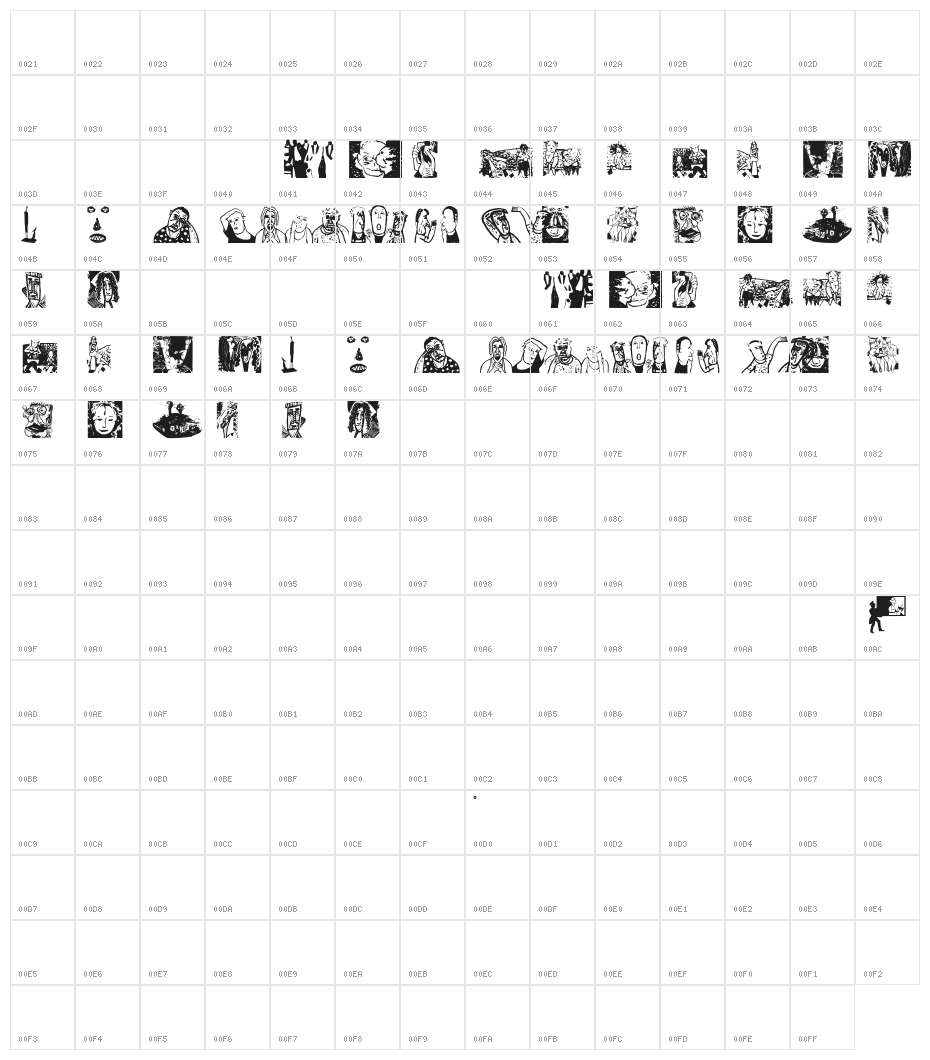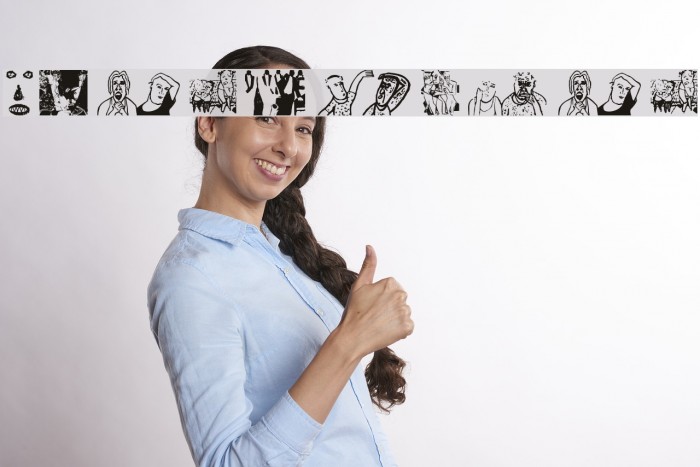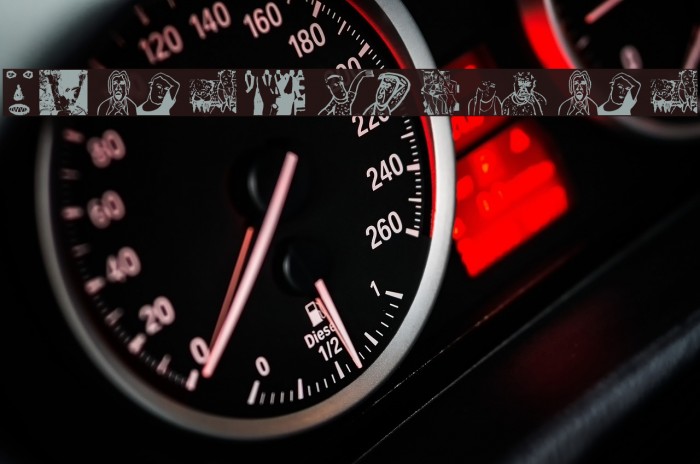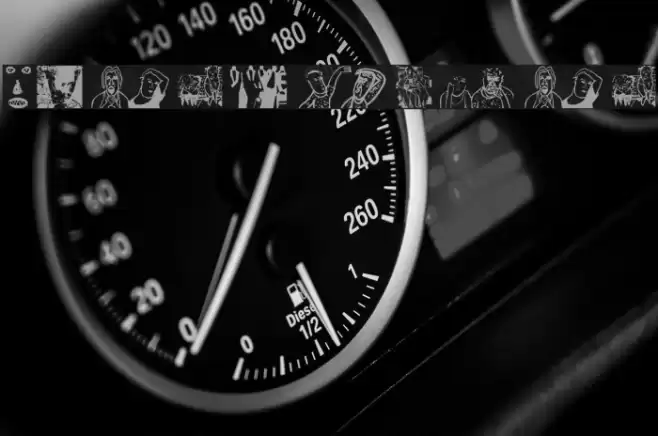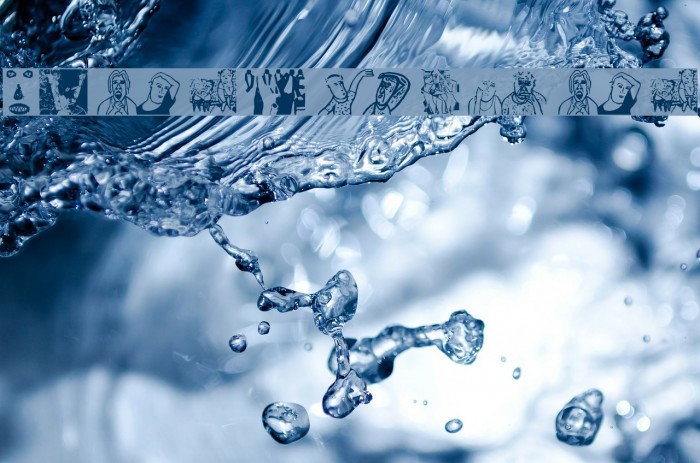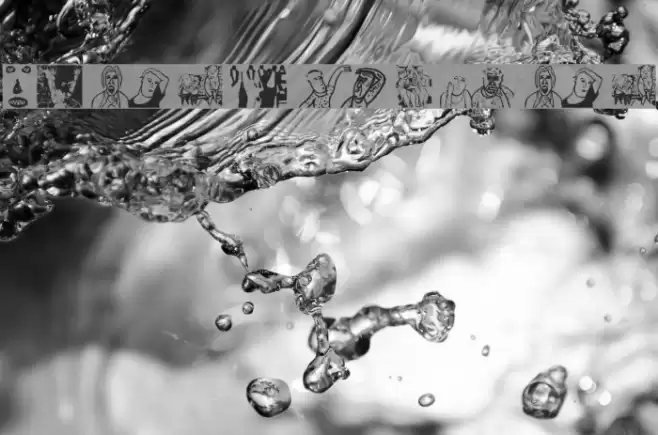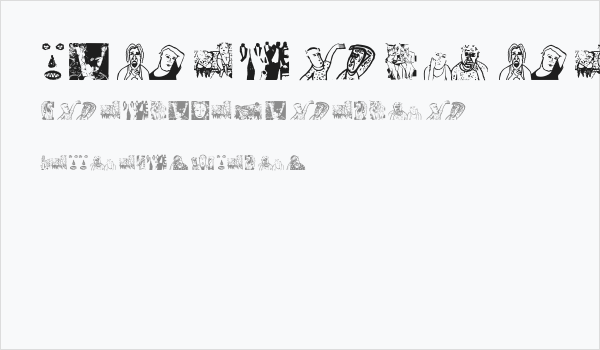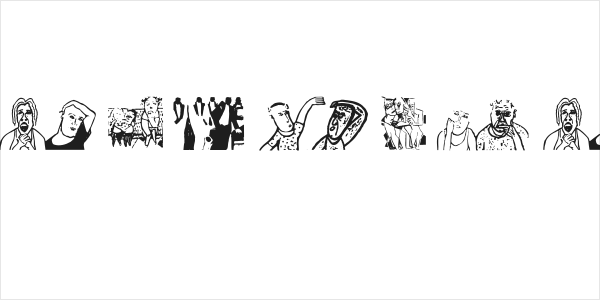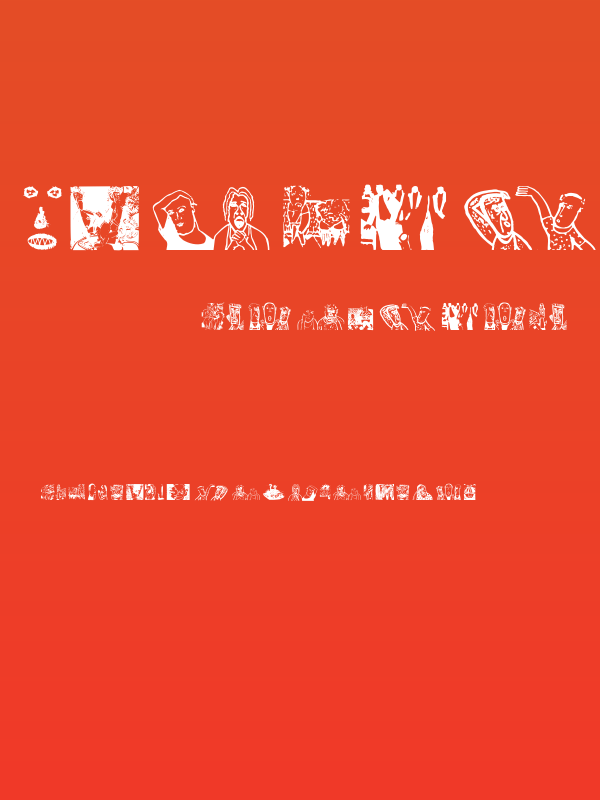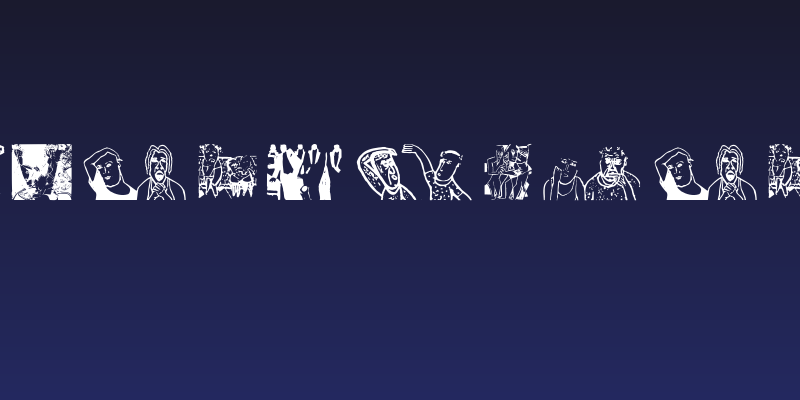
LineartOne Font
LineartOne Description
This is a decorative font featuring a series of intricate line art illustrations. Each character is represented by a unique and detailed drawing, often depicting abstract or surreal imagery. The style is reminiscent of hand-drawn sketches, with a focus on artistic expression rather than uniformity. The characters are enclosed in square frames, adding a structured element to the otherwise freeform designs. This font is ideal for creative projects where visual impact is paramount, offering a distinctive and artistic flair.
| Overall Style | Artistic, Decorative |
| Use Case | Logos, Posters, Artistic Projects |
| Proposed Projects | Ideal for artistic projects, album covers, posters, and creative branding where unique visual elements are desired. |